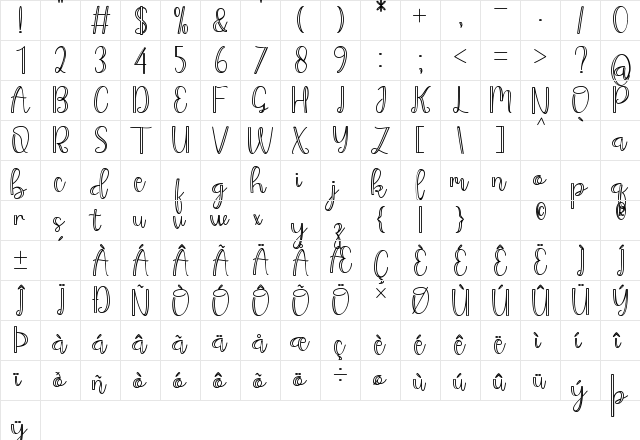
King And Queen Regular
Design Context for King And Queen Typeface
King And Queen is a composed and adaptable typeface that performs quietly and consistently across a wide range of design contexts.